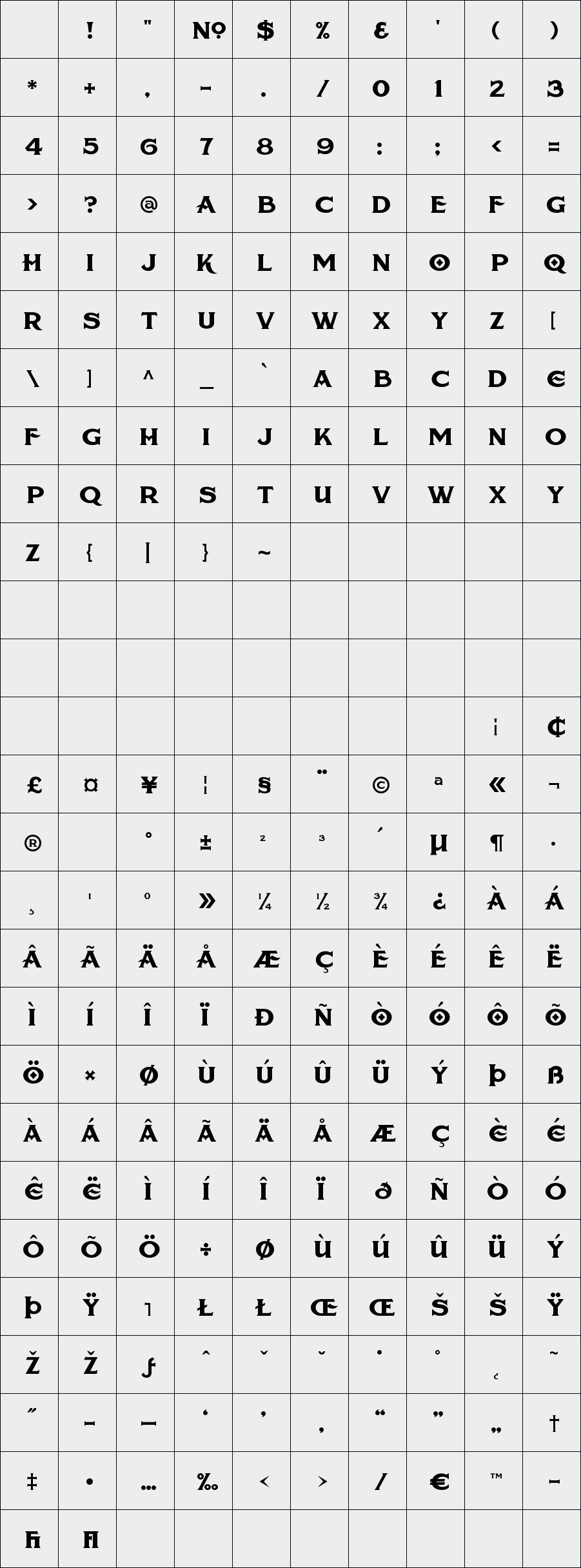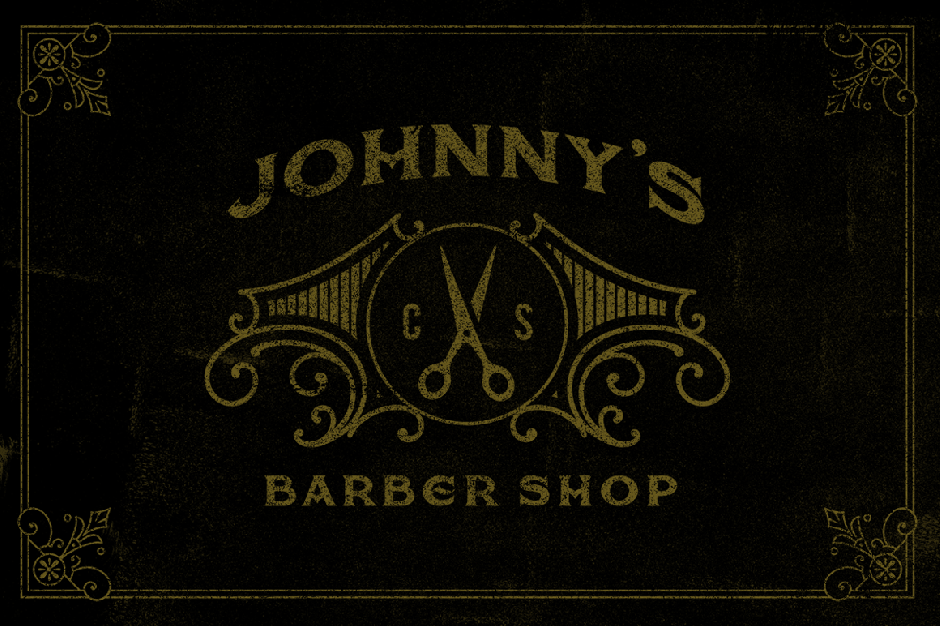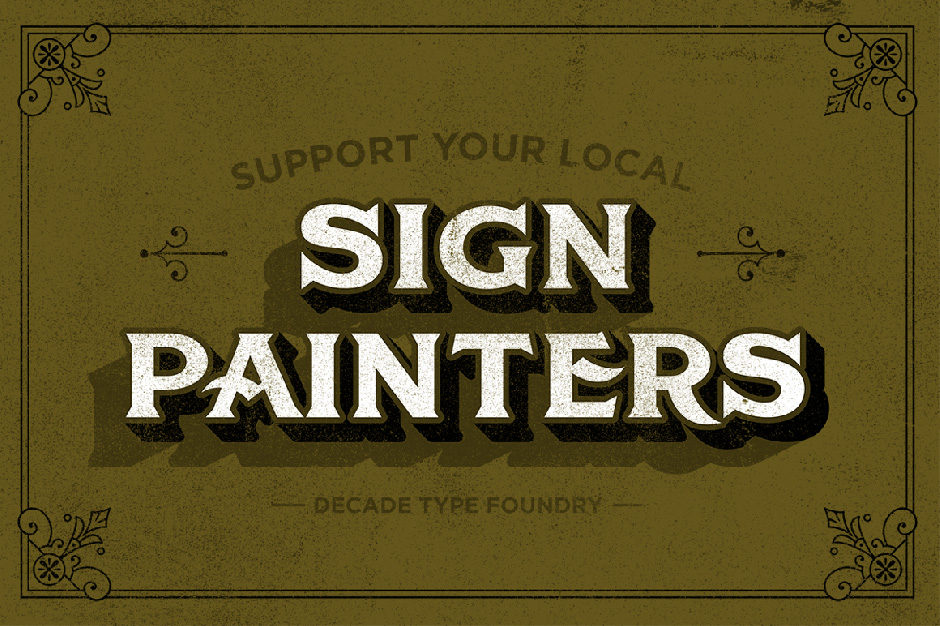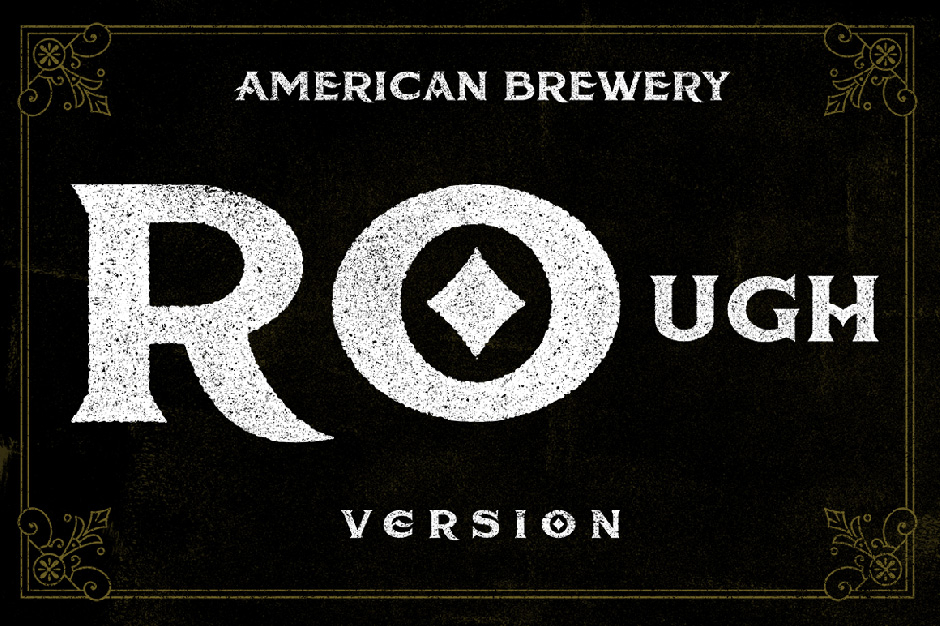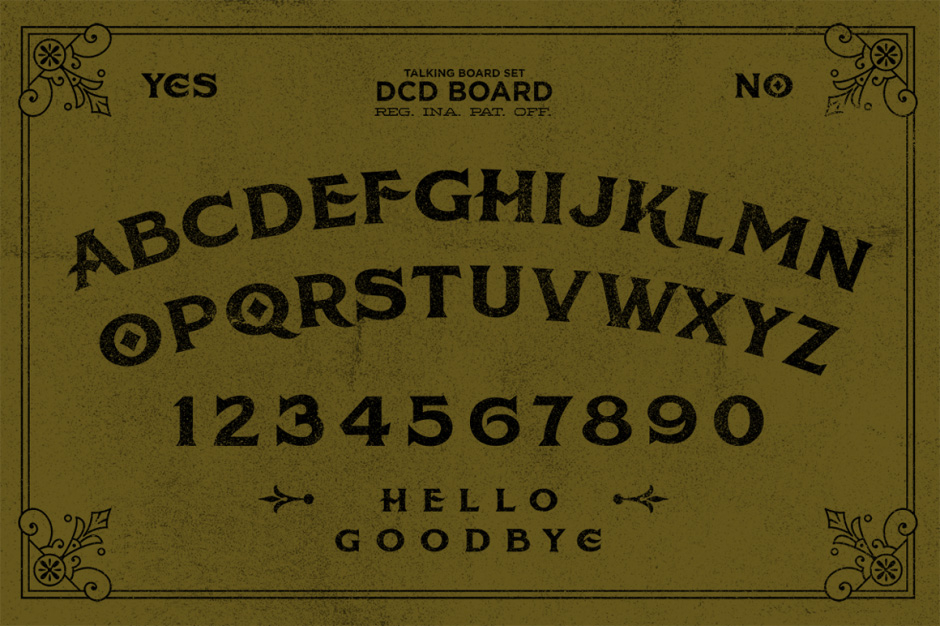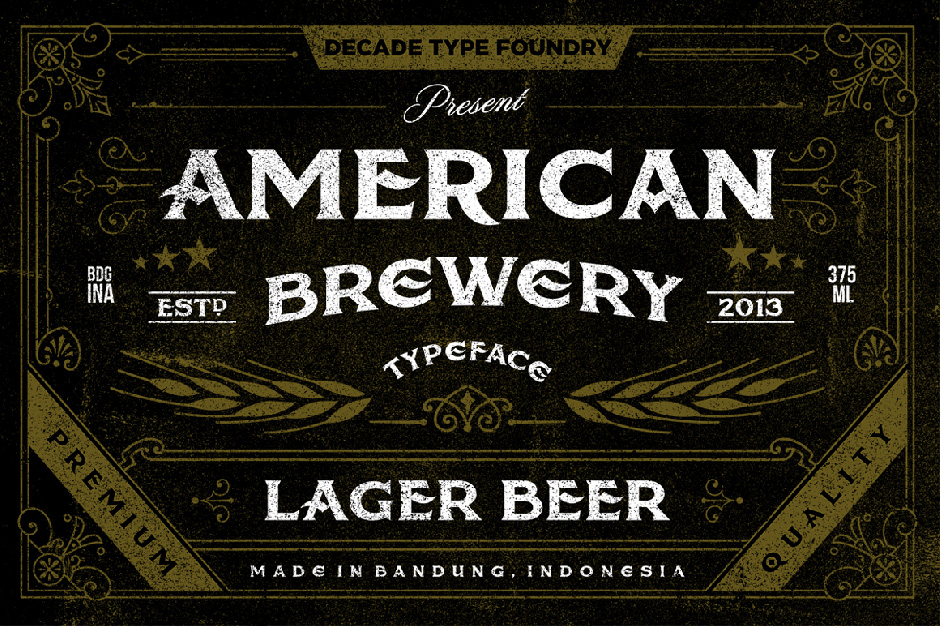
American Brewery
American Brewery was inspired by lettering found on vintage beer label. Clean and rough version are available, “rough” version comes with a vintage letterpress feel.